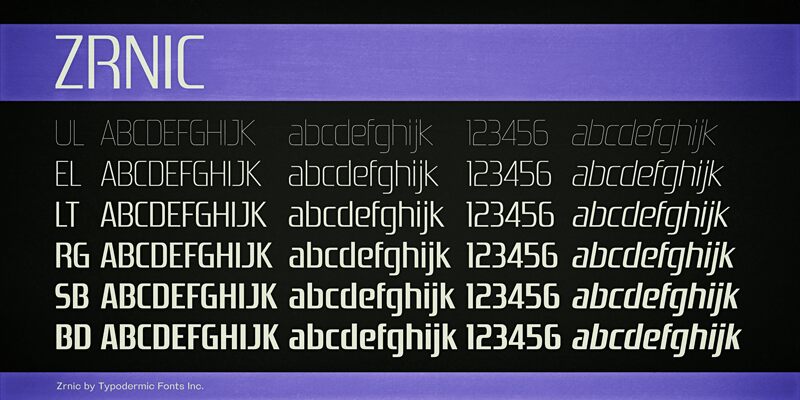
Zrnic from Typodermic Fonts is a free condensed sans serif with an assertive, engineered look. Its extremely tall, narrow letters combine smooth curves with squared joins, and the changing stroke widths keep the forms taut and precise.
Against architectural photography or technical line art, those upright proportions echo towers, machinery, and industrial structures, making the font apt for technology branding, game graphics, and automotive posters. It can turn an event title into a row of tower-like forms.